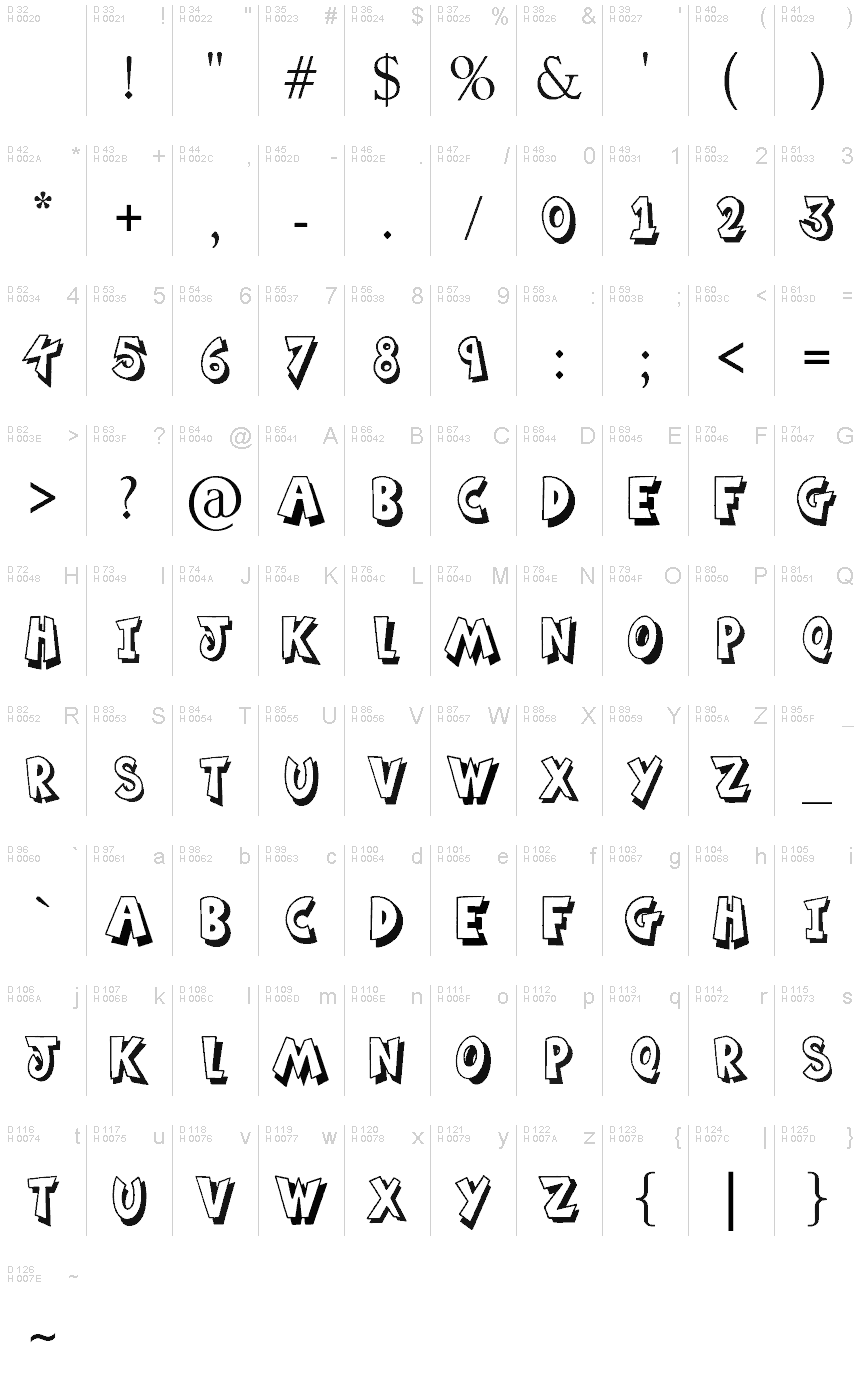
Ming in Bling
Ming in Bling, a captivating display font designed by JSH, emanates a whimsical and eye-catching vibe. This bold, cartoon-inspired typeface exudes a playful energy, with its dynamic letterforms and ample flourishes creating a visually striking impression.
The font's standout feature is its intricate, bling-like embellishments, which add depth and dimension to the characters. This distinctive ornamentation bestows the font with a sense of playfulness and flair, making it an excellent choice for attention-grabbing designs, such as logos, headlines, and promotional materials.
Ming in Bling's versatility extends across a range of creative applications, from vibrant branding to lively event graphics and eye-catching social media content. Its bold presence and expressive personality make it a captivating option for designers seeking to infuse their projects with a touch of charisma and energy.